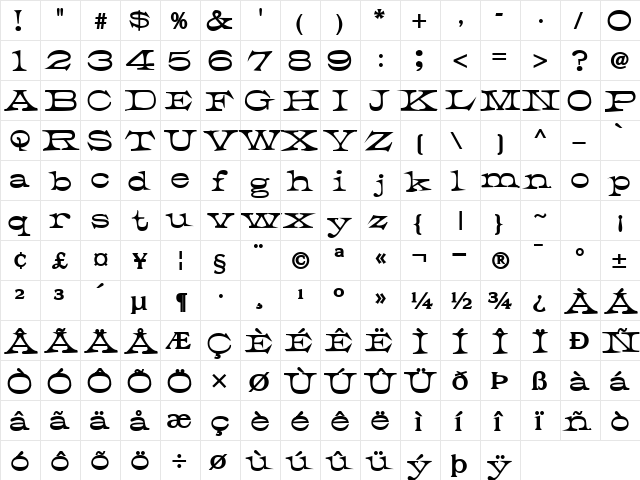
TobiasSSK Bold
Design Context for TobiasSSK Typeface
TobiasSSK is a composed and adaptable typeface that performs quietly and consistently across a wide range of design contexts. The heavy weight commands attention and anchors typographic hierarchies.